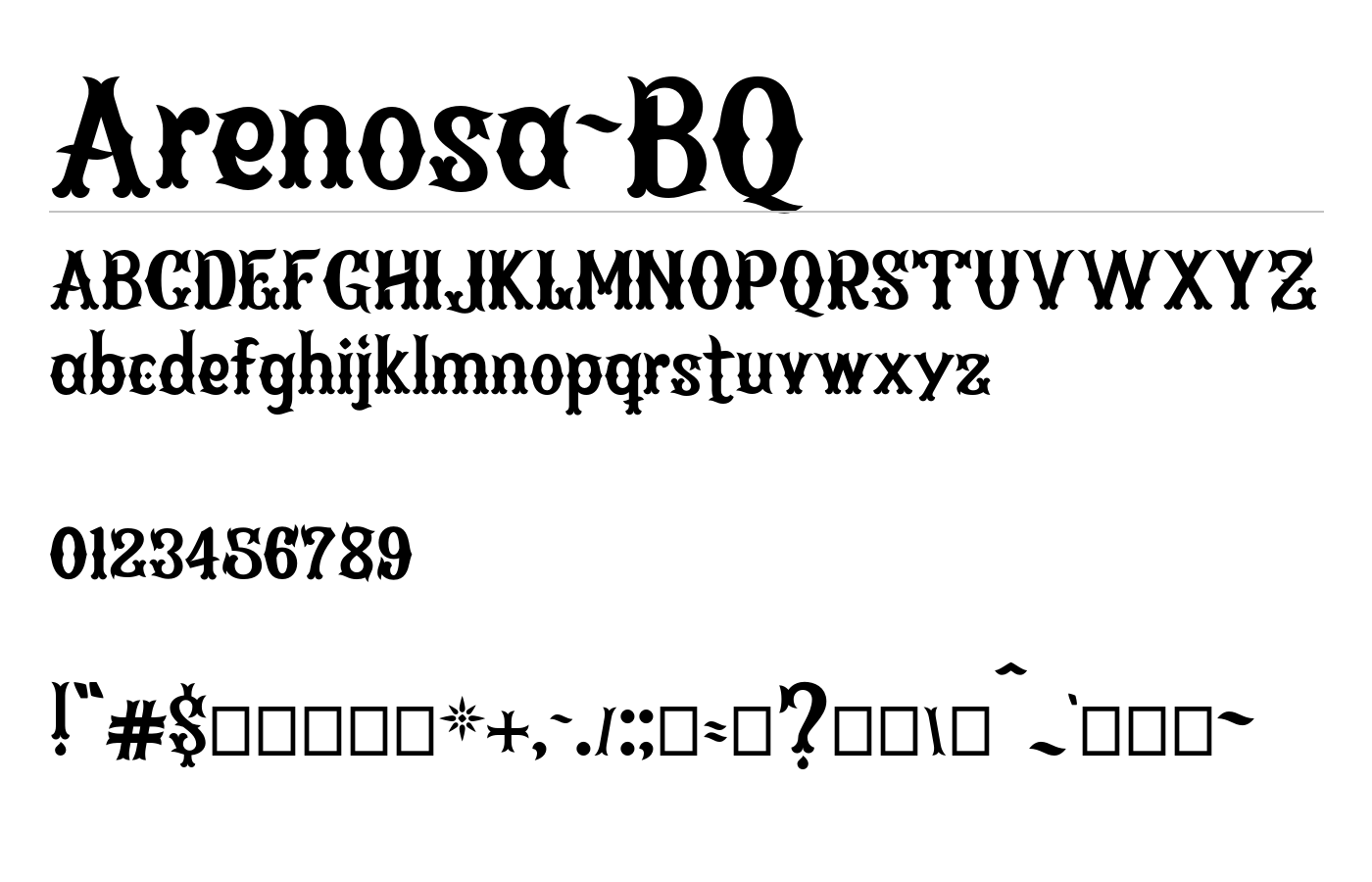
Arenosa-BQ is a bold, decorative serif font with strong contrast and distinctive, sharp serifs that give it a vintage and Gothic-inspired character. Its unique letterforms, including quirky terminals and a dramatic style, make it ideal for eye-catching headlines, posters, and branding that seeks a dramatic or retro feel. This font works best in creative, bold design contexts where personality and impact are key.